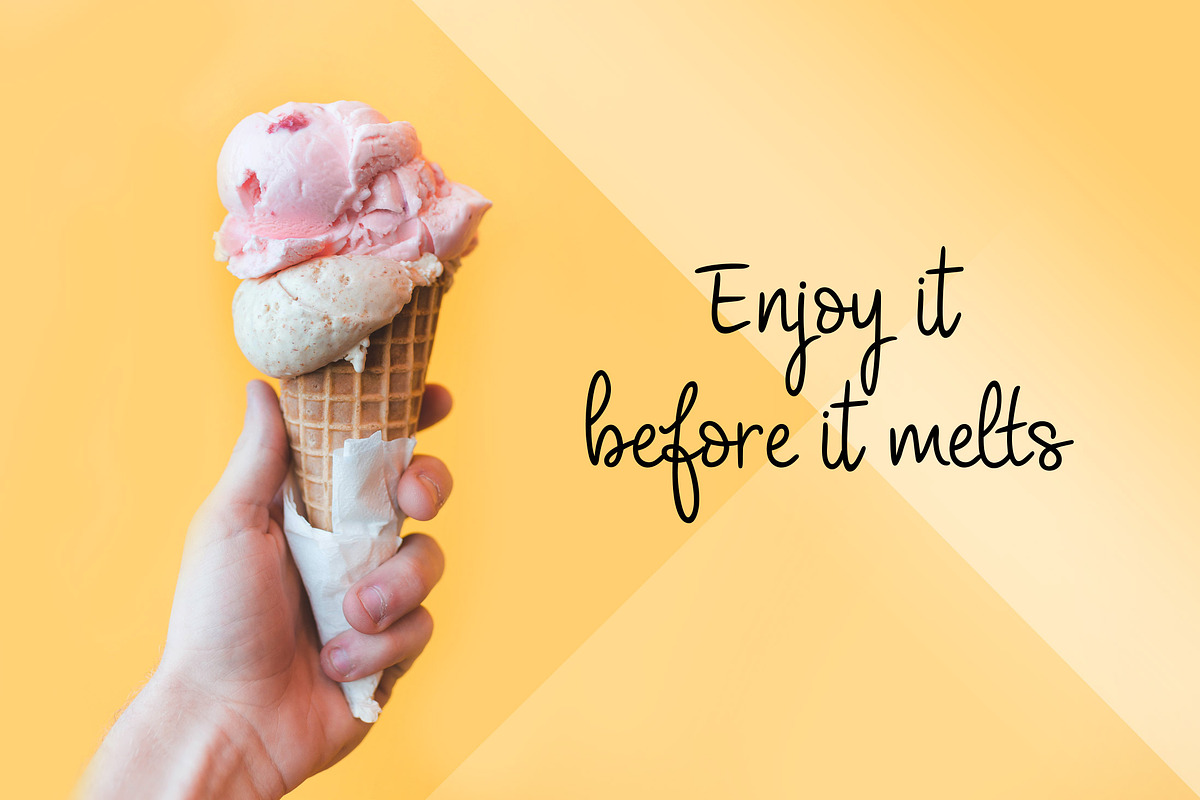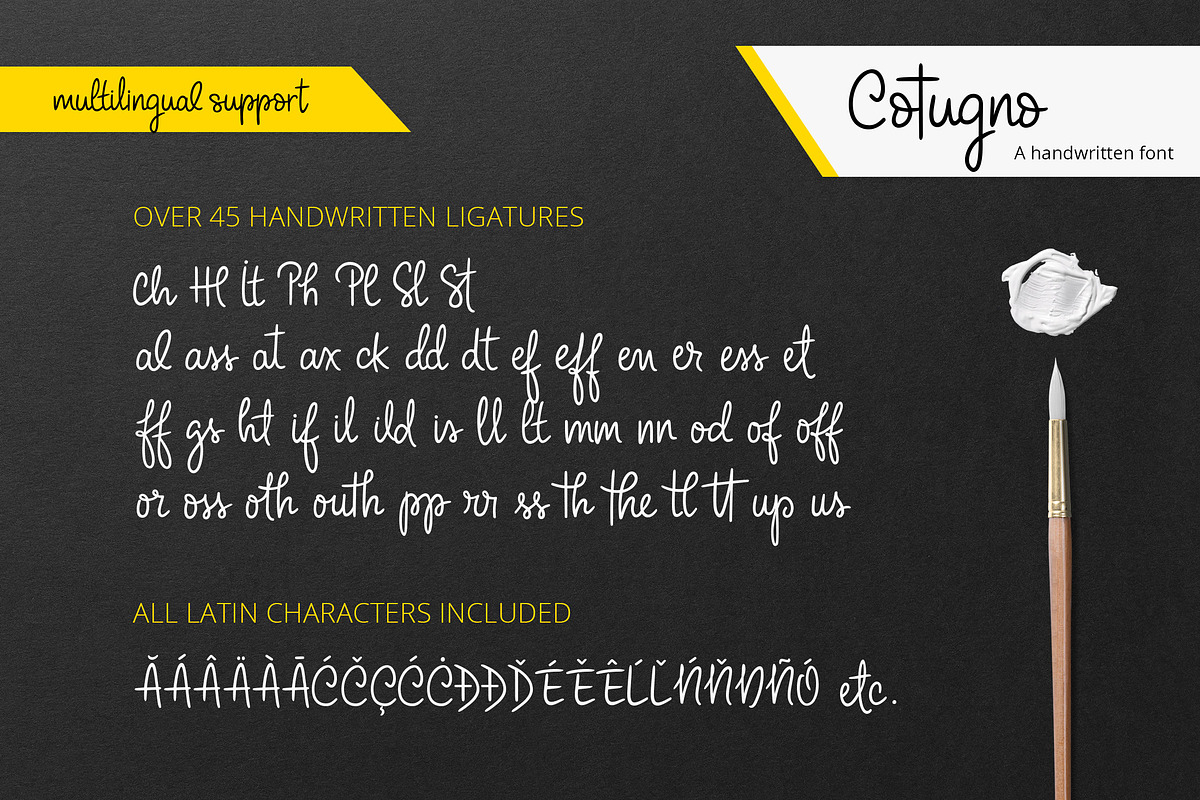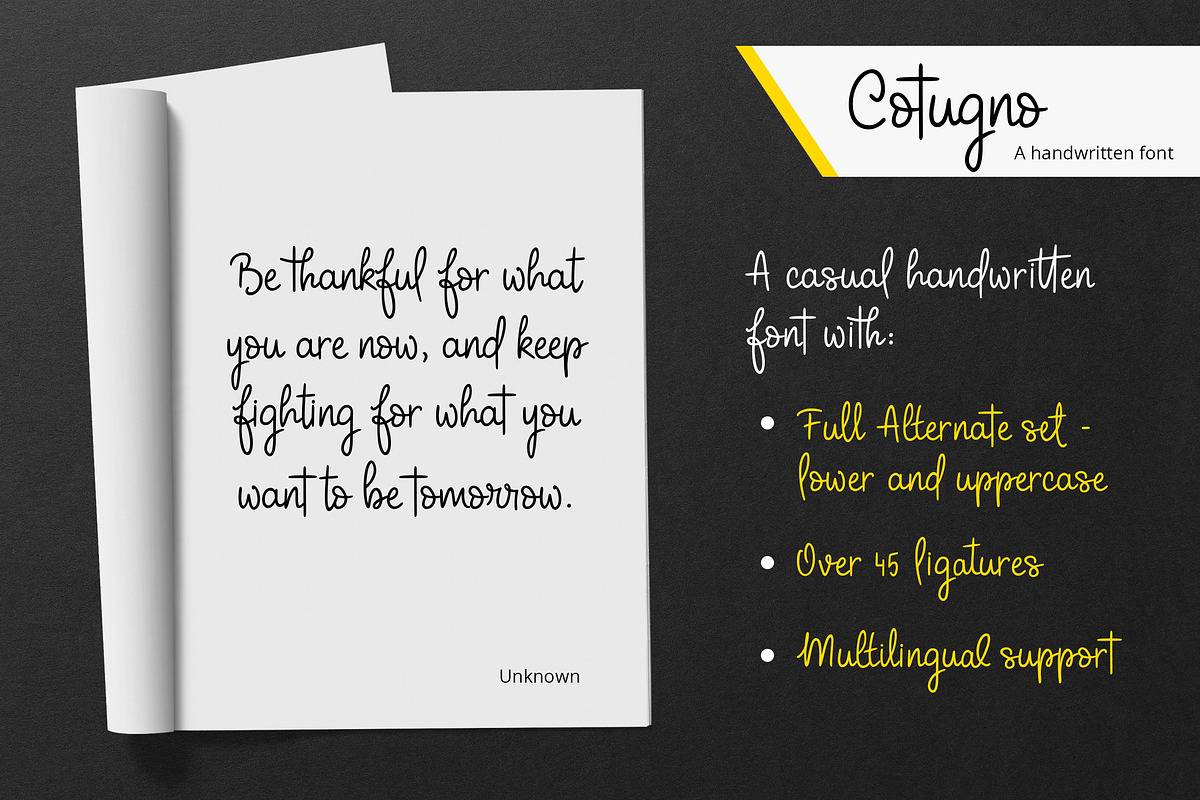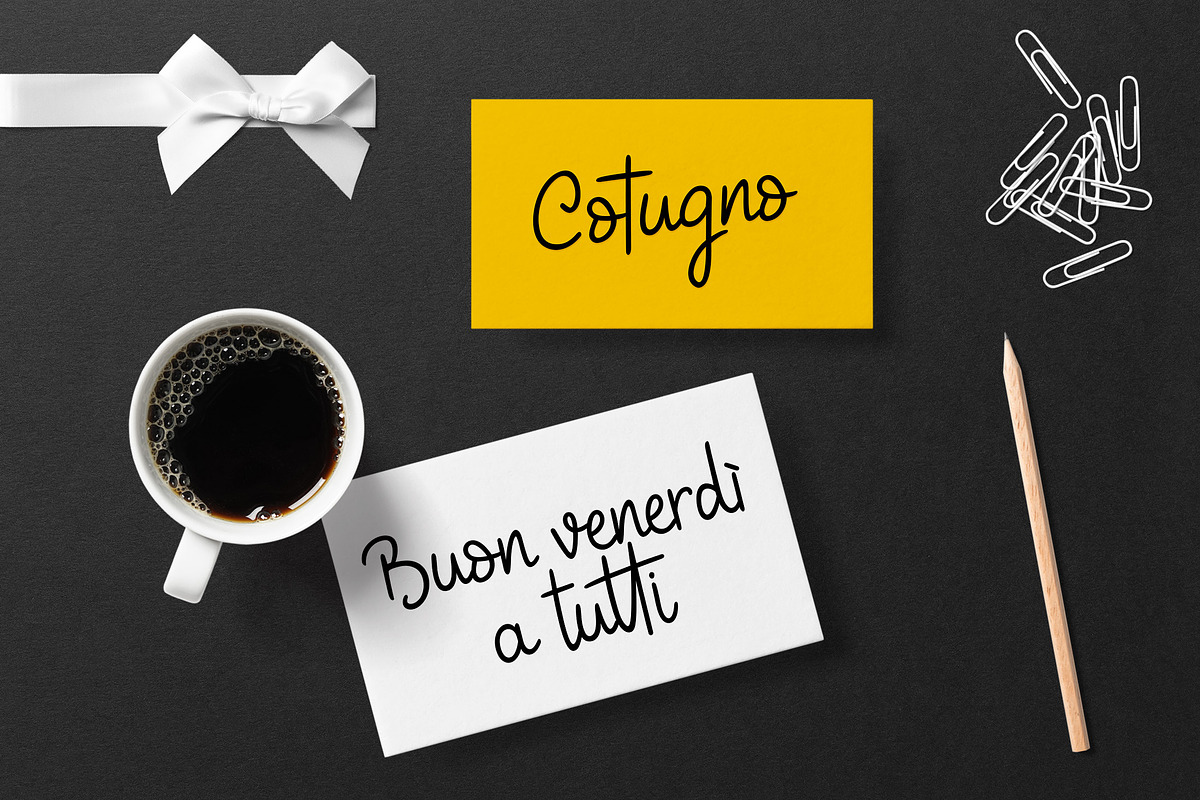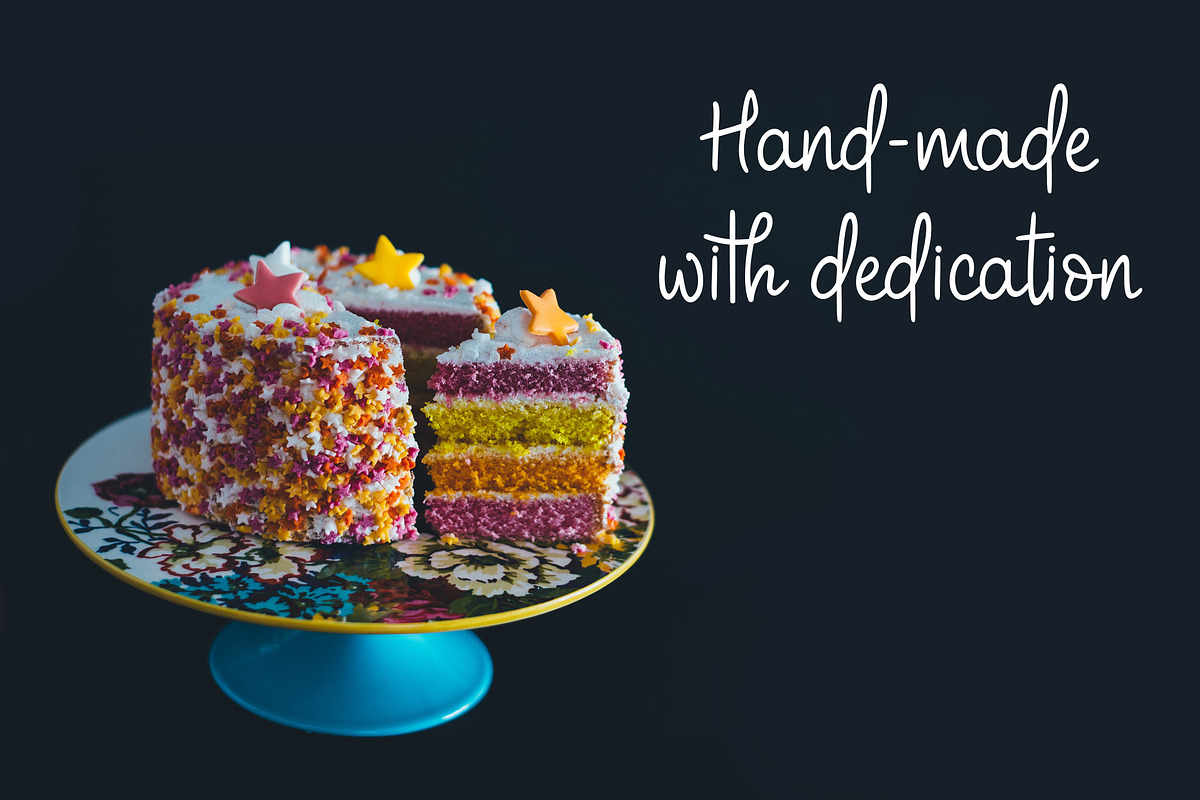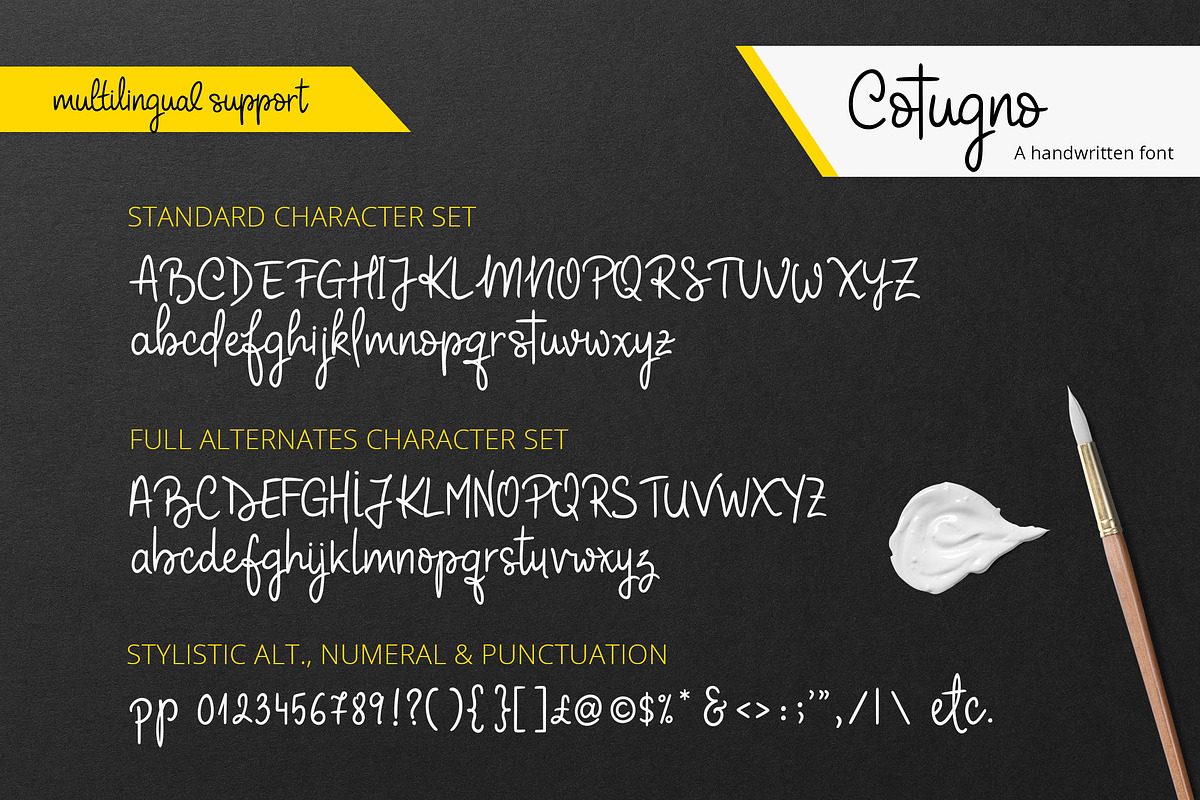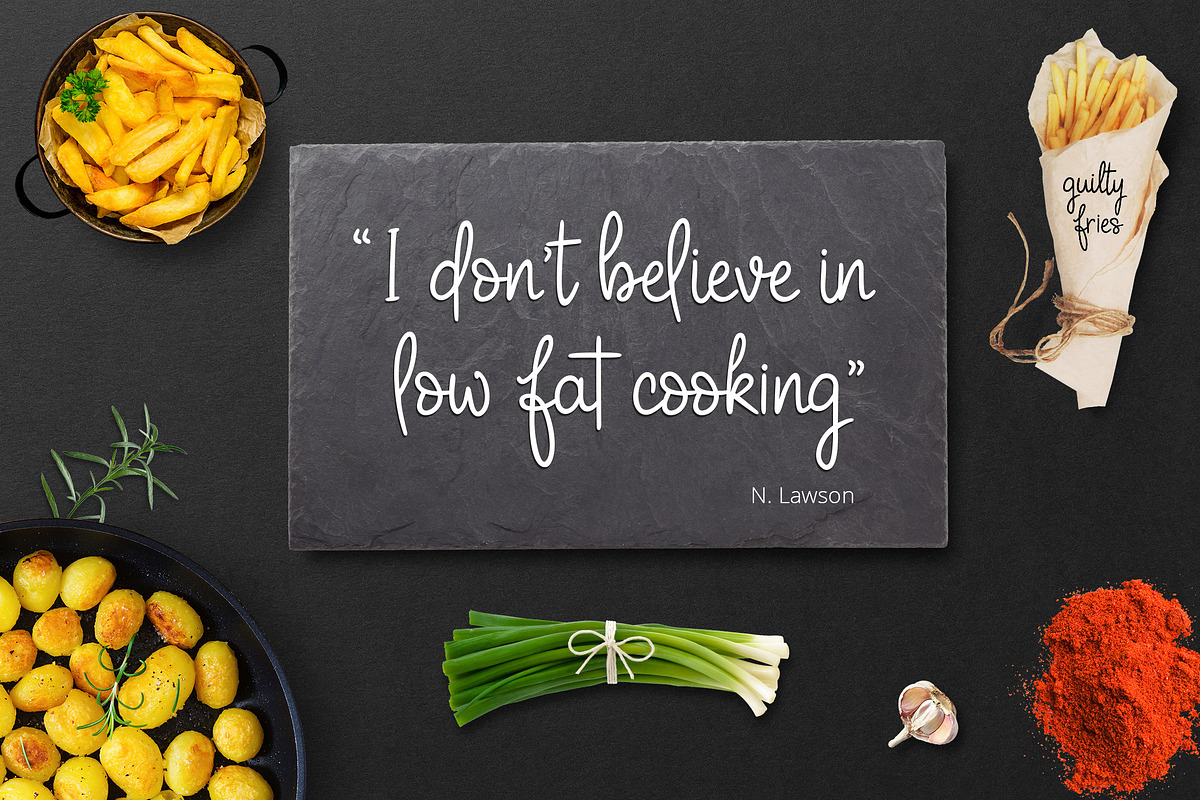
Cotugno Script Font
Introducing Cotugno Script! A casual, hand written script font for casual ocasions, fashion, social media, product promotion & high impact headlines.
Cotugno Duo was written by hand to give the most natural and casual style possible for your projects.
Cotugno Script has a variety of unique, coded features to create compelling, handmade outcomes:
- Full Alternates Set
- Over 45 LIgatures
- Multilingual support - all latin characters included